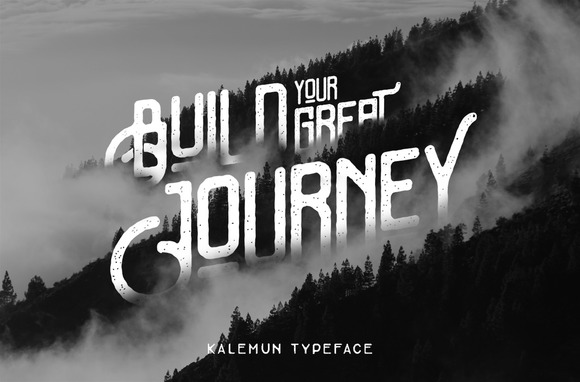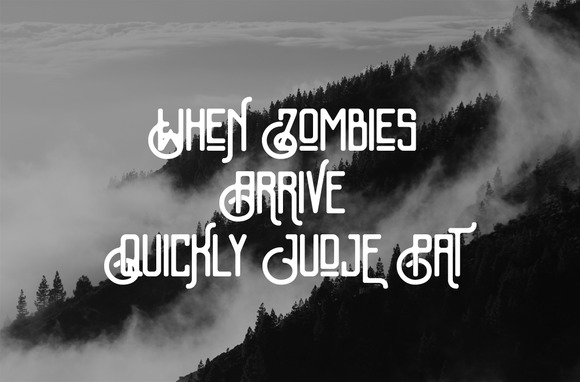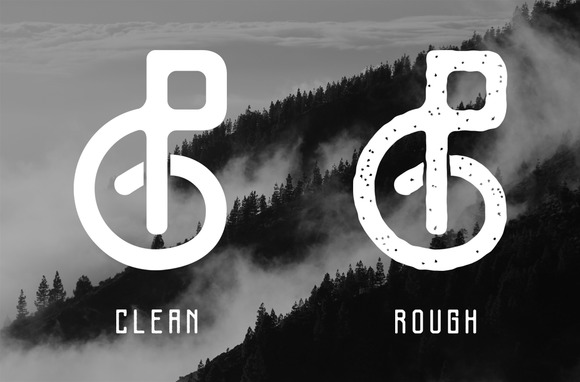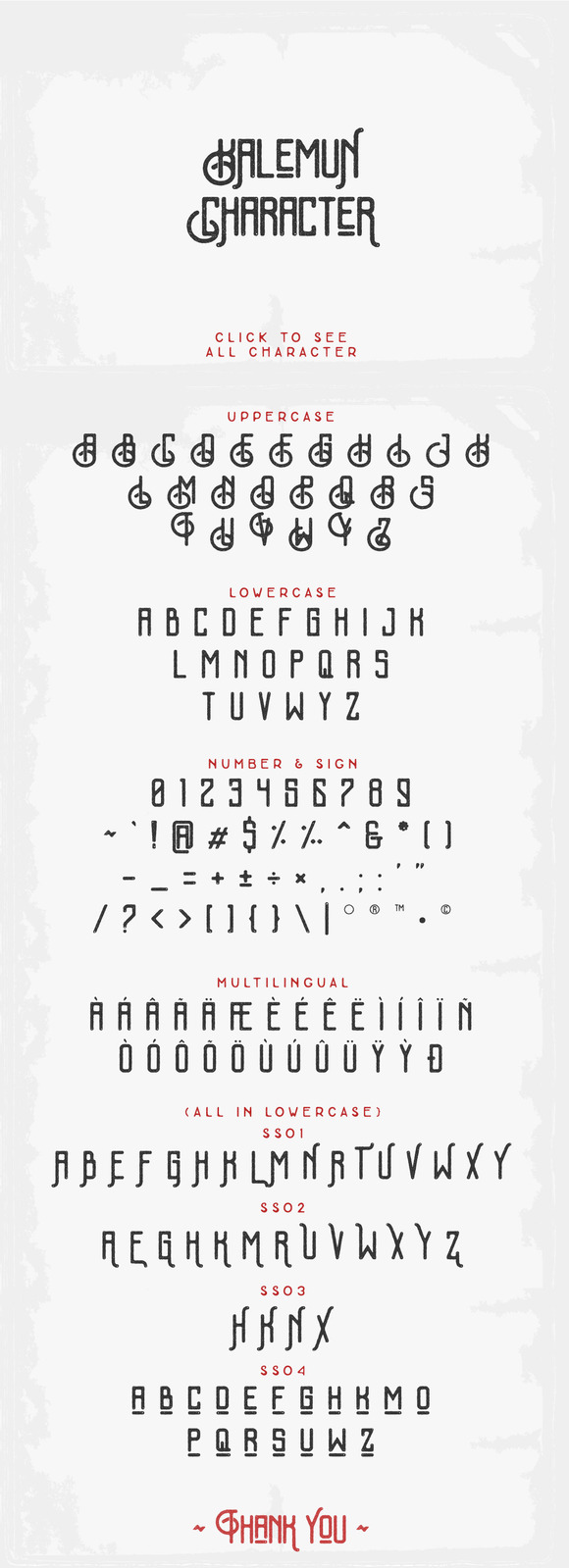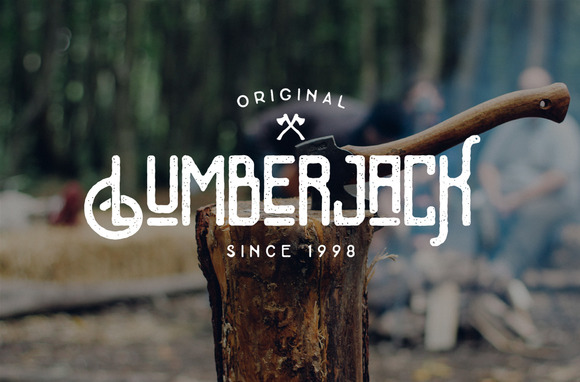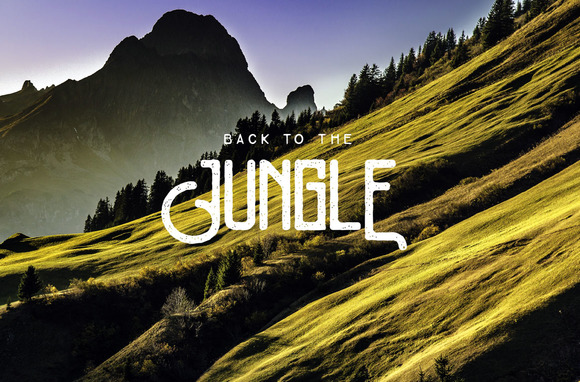
Introduction to Kalemun Typeface Font
Have you ever stumbled upon an old, worn-out book in a thrift store, and the worn-out letters on its cover immediately spark your imagination? For many designers, this is the moment when inspiration strikes, and the search for the perfect font begins. If you’re one of those creatives who are always on the lookout for high-quality design resources, you’re in luck because today we’re introducing the Kalemun Typeface Font – a vintage handcrafted font that’s sure to transport your creative project to a bygone era.
This beautiful font comes in two versions: clean and rough, making it perfect for a wide range of applications, from branding to t-shirts, posters, and flyers. With its transparent background and free download option, the Kalemun Typeface Font is an invaluable resource for designers who demand only the best for their projects.
Key Features of Kalemun Typeface Font
- High-quality font designed for creative projects, perfect as a design resource for various applications.
- Comes in a transparent background, allowing for seamless integration into any design.
- Designed with a unique, modern aesthetic, making it an excellent choice for contemporary design projects.
Honest Review: Kalemun Typeface Font
I recently came across the Kalemun Typeface Font, and I must say it’s a fantastic addition to any designer’s toolkit. ✨ With its elegant and sophisticated design, this font is perfect for creative projects that require a high-quality, premium look.
The Kalemun Typeface Font offers a range of styles and weights, making it versatile and easy to use in various design scenarios. The transparent background option is also a nice touch, allowing designers to easily layer and combine the font with other design elements.
- High-quality design that exudes elegance and sophistication
- Range of styles and weights for versatile use
- Transparent background option for seamless layering
- Limited language support, which may be a concern for global projects
- No bold or italic variants, which may be a drawback for some designers
Overall, the Kalemun Typeface Font is a solid choice for designers looking for a high-quality, free design resource. While it may have some limitations, its strengths far outweigh its weaknesses, making it a great addition to any design arsenal.
Introduction to Kalemun Typeface Font
Kalemun Typeface Font is a high-quality design resource ideal for creative projects. Its unique design and transparent background make it a great addition to any design.
Tips for Getting the Most Out of Kalemun Typeface Font
Here are some tips to get the most out of Kalemun Typeface Font:
- Combine with other design elements for a unique look
- Use in a variety of creative projects, from branding to marketing materials
Kalemun Typeface Font is commonly used in:
- Branding and logos Alternatives to Kalemun Typeface Font